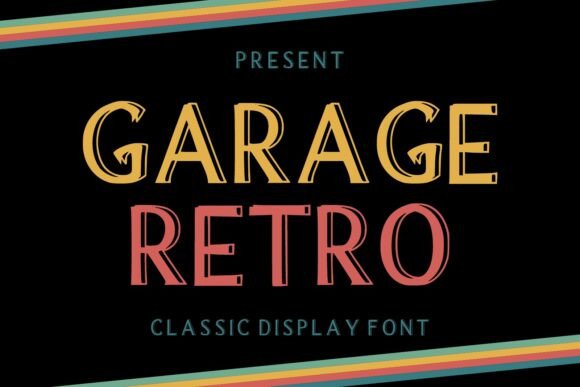
Introducing Garage Retro Font: The Ultimate Retro Classic Display Font
Are you looking for a font that captures the energy and excitement of sports? Do you want to add a touch of nostalgia and authenticity to your designs? Look no further than Garage Retro Font, an authentic retro classic display font inspired by college typography. In this article, we’ll take a closer look at Garage Retro Font, its features, and how you can use it to elevate your designs.
What is Garage Retro Font?
Garage Retro Font is a bold and dynamic font that embodies the spirit of sports and athleticism. Its strong and commanding look makes it perfect for designing sports-related materials, such as logos, jerseys, and posters. The font features thick lines and sharp edges that convey power and athleticism, making it an excellent choice for designers who want to create a bold and eye-catching design.
Inspiration from College Typography
Garage Retro Font draws inspiration from traditional college typography, which is known for its bold and playful style. The font’s design is reminiscent of classic college sports posters, with a modern twist that makes it suitable for a wide range of design applications. Whether you’re designing a logo for a sports team or creating a poster for a sports event, Garage Retro Font is the perfect choice.
Key Features of Garage Retro Font
- Bold and Dynamic: Garage Retro Font is a bold and dynamic font that captures the energy and excitement of sports.
- Strong and Commanding: The font features thick lines and sharp edges that convey power and athleticism.
- Authentic Retro Classic: Garage Retro Font is an authentic retro classic display font inspired by college typography.
- Multipurpose: The font is suitable for a wide range of design applications, including logos, posters, and sports-related materials.
How to Use Garage Retro Font
Garage Retro Font is a versatile font that can be used in a variety of design applications. Here are some ideas on how to use Garage Retro Font:
- Logo Design: Use Garage Retro Font to create a bold and eye-catching logo for a sports team or sports-related brand.
- Poster Design: Create a poster for a sports event or tournament using Garage Retro Font.
- Jersey Design: Use Garage Retro Font to design a jersey for a sports team.
- Social Media Graphics: Create social media graphics for a sports-related brand using Garage Retro Font.
Benefits of Using Garage Retro Font
Using Garage Retro Font offers several benefits, including:
- Unique and Authentic: Garage Retro Font is a unique and authentic retro classic display font that adds a touch of nostalgia to your designs.
- High-Impact: The font’s bold and dynamic design makes it perfect for creating high-impact designs that grab attention.
- Multipurpose: Garage Retro Font is suitable for a wide range of design applications, making it a great addition to your font library.
- Easy to Read: Despite its bold design, Garage Retro Font is easy to read, making it perfect for use in a variety of design applications.
Tips for Using Garage Retro Font Effectively
Here are some tips for using Garage Retro Font effectively:
- Use it Boldly: Garage Retro Font is a bold font, so use it boldly to create high-impact designs.
- Experiment with Colors: Experiment with different colors to find the perfect combination that works with Garage Retro Font.
- Pair it with Other Fonts: Pair Garage Retro Font with other fonts to create a unique and interesting design.
- Keep it Simple: Keep your design simple and clean to allow Garage Retro Font to take center stage.
Garage Retro Font is an excellent choice for designers who want to add a touch of nostalgia and authenticity to their designs. Its bold and dynamic design makes it perfect for creating high-impact designs that capture the energy and excitement of sports. With its versatility and ease of use, Garage Retro Font is a great addition to any font library.
- What is Garage Retro Font? Garage Retro Font is an authentic retro classic display font inspired by college typography.
- What is Garage Retro Font used for? Garage Retro Font is suitable for a wide range of design applications, including logos, posters, and sports-related materials.
- Is Garage Retro Font easy to read? Yes, despite its bold design, Garage Retro Font is easy to read.